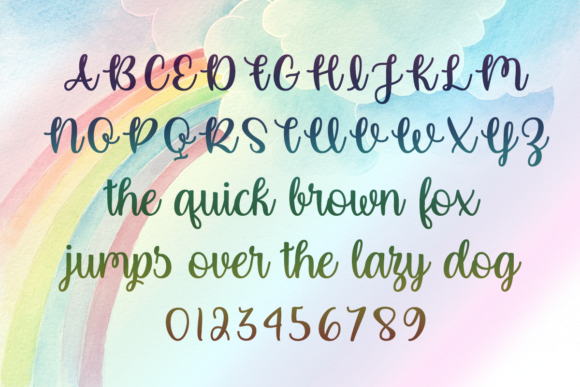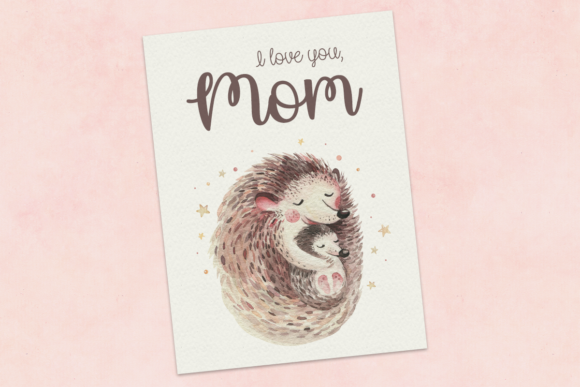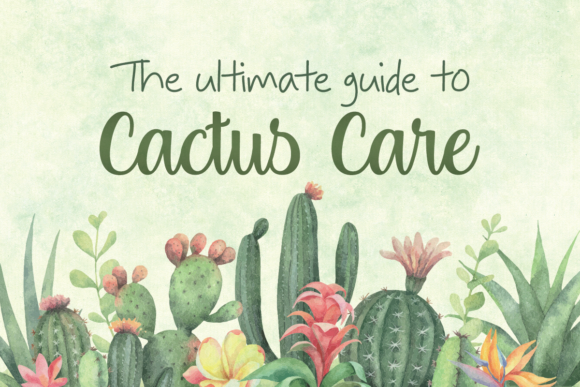
Rainbow in June Font
About Rainbow in June Font
Rainbow in June is an absolutely charming cursive script typeface that radiates adorableness. With its playful and whimsical design, it serves as an ideal choice for a myriad of creative projects, including cute greeting cards, blog post graphics, shop logos, and any endeavor that requires a uniquely personalized touch.
The cursive script of Rainbow in June adds a delightful and elegant flair to cute greeting cards, making them even more special and endearing. Whether you’re expressing heartfelt sentiments or spreading joy, this font brings a touch of warmth and personality to your messages.
In the realm of digital content creation, Rainbow in June shines in blog post graphics, infusing a sense of charm and creativity into your visuals. Its adorable cursive style contributes to a visually appealing and engaging aesthetic, capturing the attention of your audience.
For shop logos, Rainbow in June offers a perfect blend of playfulness and sophistication. The personalized touch of the cursive script creates a distinctive and memorable brand identity, making your shop stand out with a unique charm.
The versatility of Rainbow in June extends to various projects where a special touch is required. Whether used for invitations, stationery, social media graphics, or any other creative endeavor, this font adds a delightful and personalized element that enhances the overall appeal.
In essence, Rainbow in June is more than just a font; it’s an adorable and versatile cursive script typeface that elevates the sweetness and personalization of your creative projects. Its application extends across cute greeting cards, blog post graphics, shop logos, and beyond, making it an amazing fit for any endeavor that seeks a special and charming touch.